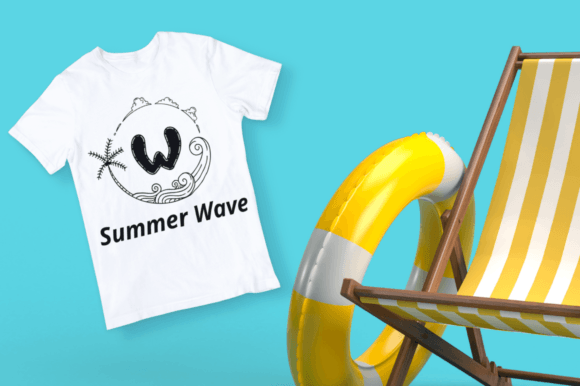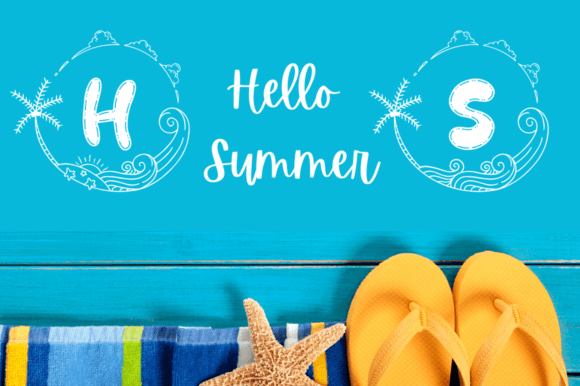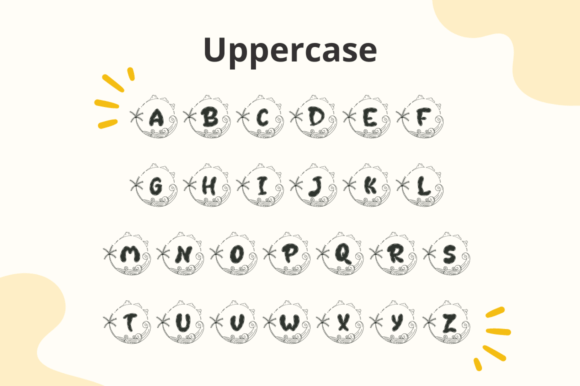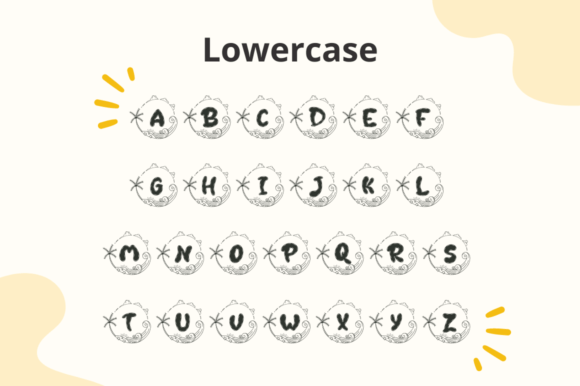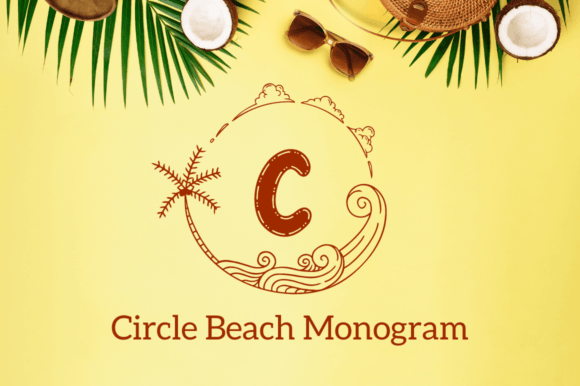
Introducing Circle Beach Monogram Font: The Perfect Summer Companion
Are you ready to add a touch of summer magic to your designs? Look no further than the Circle Beach Monogram Font! This stunning summer-themed decorative font is sure to capture your heart and become your go-to choice for all your design needs. In this article, we’ll dive into the world of Circle Beach Monogram Font and explore its endless possibilities.
What is Circle Beach Monogram Font?
Circle Beach Monogram Font is a beautifully crafted decorative font, designed to evoke the carefree spirit of summer. Its unique and elegant design makes it perfect for a wide range of applications, from business designs and logos to social media posts and wedding cards. Whether you’re a designer, crafter, or simply a DIY enthusiast, this font is sure to become your new favorite.
Key Features of Circle Beach Monogram Font
• Summer-themed design: The font’s design is inspired by the sun-kissed beaches and warm summer breezes, making it perfect for summer-themed designs.
• Elegant and decorative: The font’s elegant and decorative style makes it ideal for adding a touch of sophistication to your designs.
• Monogram style: The font features a beautiful monogram style, perfect for creating custom logos, branding, and wedding cards.
• High-quality design: The font is designed with high-quality and precision, ensuring that it looks great in any size or application.
Uses of Circle Beach Monogram Font
The versatility of Circle Beach Monogram Font is one of its most appealing features. Here are just a few examples of how you can use this amazing font:
• Business designs and logos: Create a stunning logo or business design that captures the essence of your brand.
• Social media posts: Add a touch of summer magic to your social media posts and stand out from the crowd.
• Wedding cards and invitations: Create beautiful and elegant wedding cards and invitations that will leave a lasting impression.
• Crafting and DIY projects: Use the font to add a personal touch to your crafting and DIY projects, such as scrapbooking, card making, and more.
• Branding and advertising: Use the font to create eye-catching branding and advertising materials that will grab attention.
Why Choose Circle Beach Monogram Font?
So, why should you choose Circle Beach Monogram Font over other fonts? Here are just a few reasons:
• Unique design: The font’s unique design sets it apart from other fonts, ensuring that your designs will stand out.
• Elegant and sophisticated: The font’s elegant and sophisticated style makes it perfect for high-end designs and applications.
In conclusion, Circle Beach Monogram Font is a stunning summer-themed decorative font that is sure to capture your heart. With its elegant and sophisticated design, it’s perfect for a wide range of applications, from business designs and logos to social media posts and wedding cards. Whether you’re a designer, crafter, or simply a DIY enthusiast, this font is sure to become your new favorite. So why wait? Fall in love with Circle Beach Monogram Font today and take your designs to the next level!